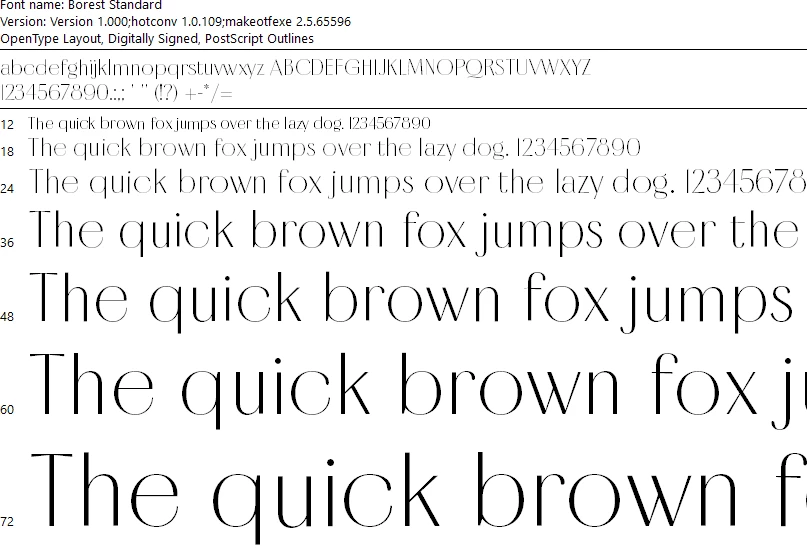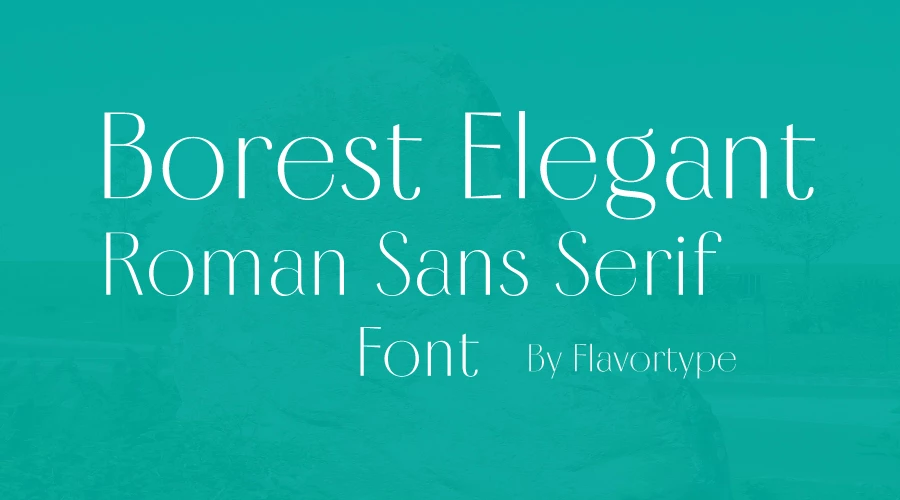
Borest is a new roman sans serif typeface that has been painstakingly created. The inspiration for these fonts comes from a wide range of sources, including vintage, classic, art deco, and modern. As a result, the appearance of these fonts must fall within the reference’s broad range. Borest Typefaces have a versatile and luxurious feel to them. Borest has OpenType features such as Ascender and Descender Swashes, Ligatures, and Stylistic Alternates.
Every glyph for alternatives has been chosen to be the best it can be without removing any of the font’s characteristics. Flavortype created and distributed the font. The font achieves a perfect blend of widely neutral appeal and individual refinement. Borest Elegant Roman Sans Serif Font is both a workhorse and a showcase font with impact and flair, and it’s easy to adapt to any context. The typeface also supports a wide range of worldwide languages, which is an outstanding feature in and of itself.
The font is ideal for projects like branding, headers, logotypes, posters, magazines, packaging, wedding invitations, and more. The typeface is excellent for any retro or vintage design since it exudes a sense of refinement and elegance. This charming sans serif font can also be used to improve your current technical identity and activities.